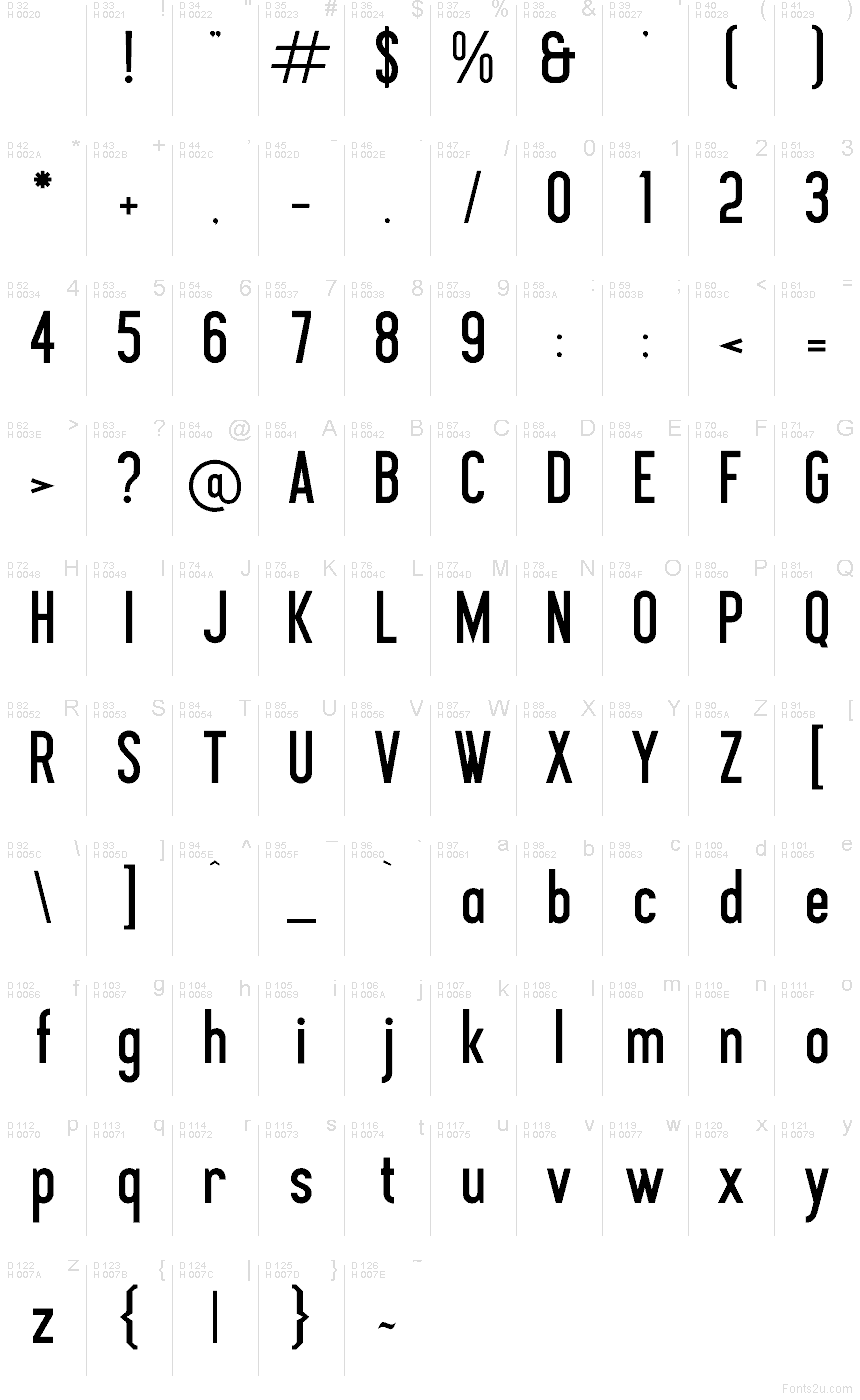
HONRESD
Honresd font by Storytype Studio is a free condensed sans serif typeface with a striking, upright stance and tightly packed letters that feel both urban and elegant. Its tall proportions, squared edges, and subtly softened corners give each word a sleek, poster-like presence, as if the letters were pulled from vintage subway signage and polished for modern branding.
Using Honresd, bold headlines snap into place without stealing attention from imagery or supporting text. This free font works beautifully for magazine covers, film titles, album art, product packaging, event posters, and fashion branding. Set it large to emphasize its vertical rhythm, and pair it with a light, neutral sans for smaller copy to let Honresd carry the visual weight.